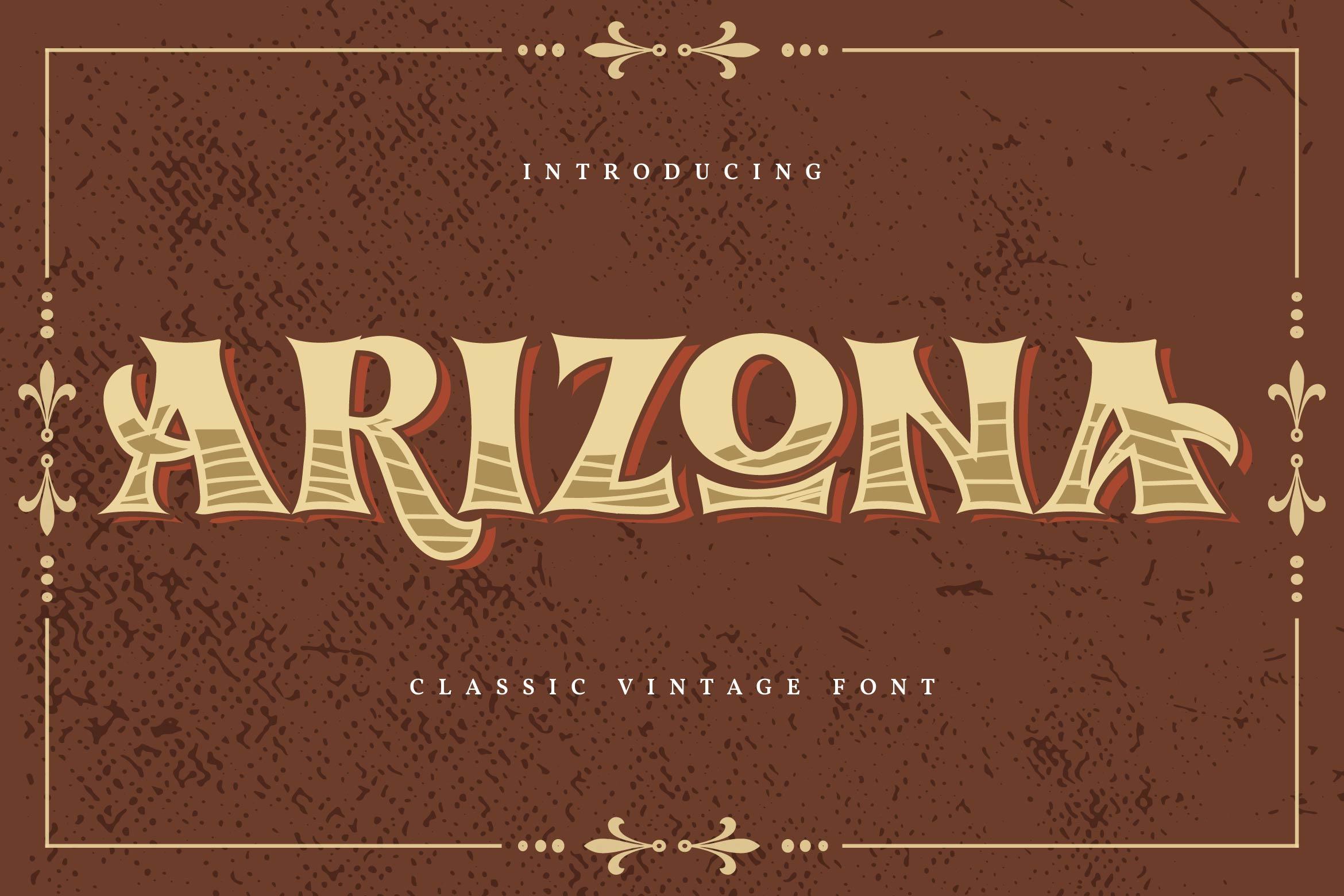
Arizona Font Description
Arizona is an elegant and bold serif font. Fall in love with its incredibly versatile style and use it to create gorgeous wedding invitations, beautiful stationary art, eye-catching social media posts, and much more!